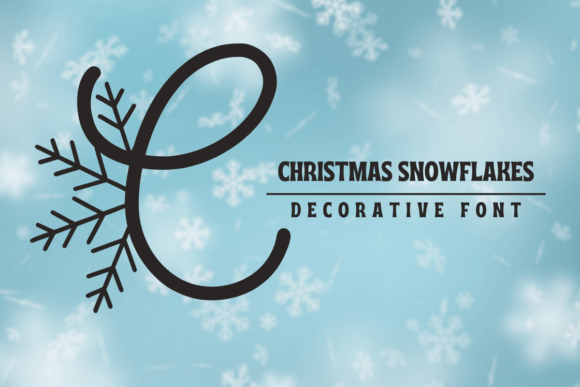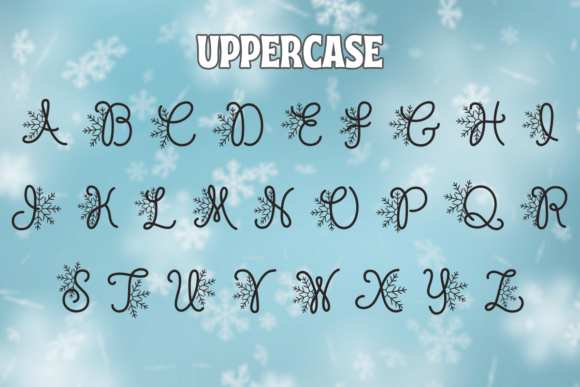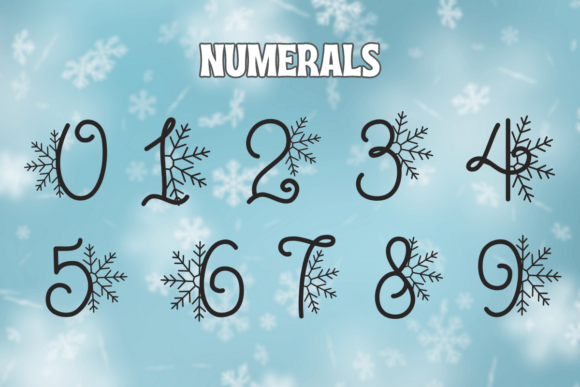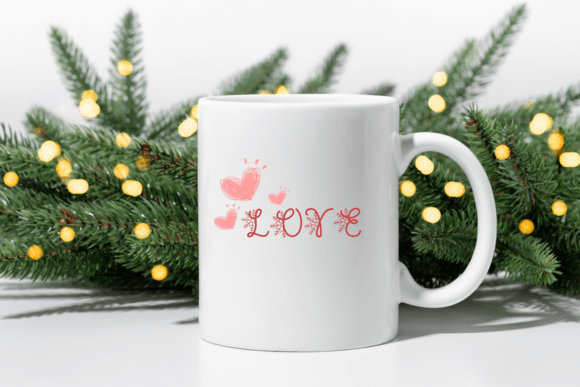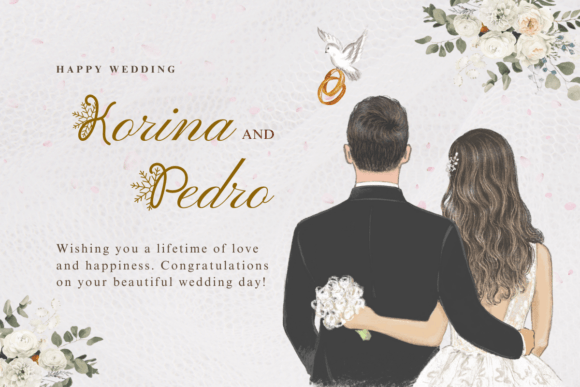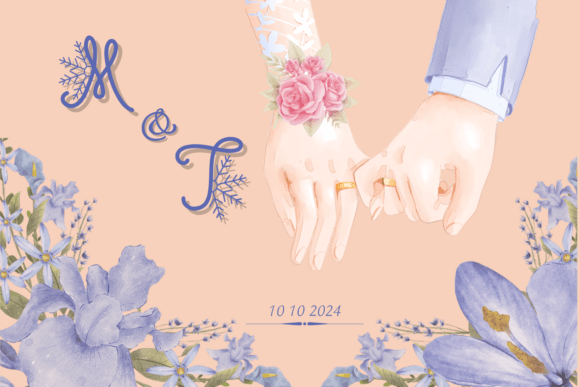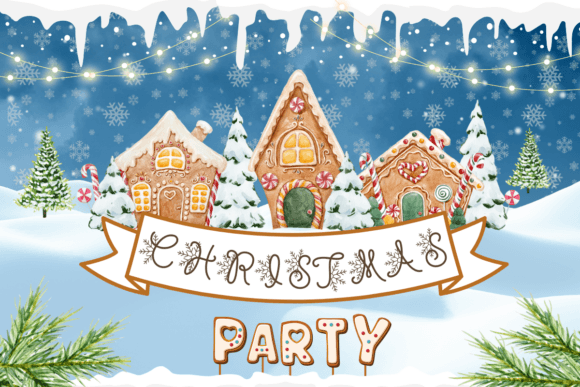
The Magic of Handwritten Christmas Cheer
As the holiday season approaches, we start brainstorming ideas for our Christmas cards and decorations. We want to capture the warmth and coziness of the season, but also make our creations stand out from the crowd. That’s when the perfect font comes to mind – the Christmas Snowflakes Font.
This charming handwritten decorative font is a game-changer for designers and crafters alike. With its delightful snowflake designs, it adds a touch of whimsy and magic to any project. Whether you’re creating holiday cards, invitations, or festive decorations, the Christmas Snowflakes Font is sure to bring a smile to the faces of your loved ones.
Christmas Snowflakes Font Key Features
- Unique Characteristics: Delicate, intricate designs of snowflakes and Christmas elements, perfect for festive and winter-themed projects.
- Number of Glyphs: Includes over 100 unique snowflake and Christmas-themed glyphs, allowing for endless design possibilities.
Designer Review: Christmas Snowflakes Font
Overall, I think the Christmas Snowflakes Font is a cute and playful addition to any winter-themed design. Here’s what I like about it: ✨
- Unique and creative design: The font features intricate, snowflake-inspired patterns that add a touch of whimsy to any text.
- Perfect for winter projects: Whether you’re designing holiday cards, gift tags, or social media posts, this font is sure to get you in the festive spirit.
- Customization options: The font comes with a range of styles and sizes, making it easy to adapt to different design needs.
However, there are some limitations to keep in mind: ⚠️
- Limited legibility: Due to the intricate patterns, the font may be difficult to read at smaller sizes or in certain contexts.
- Limited font families: While the font has multiple styles, it’s still a relatively small family, which may limit its versatility.
Overall, I think the Christmas Snowflakes Font is a fun and creative choice for winter designs. While it may have some limitations, it’s perfect for adding a touch of festive flair to your projects. Just be sure to use it thoughtfully and balance it with clear, legible text to ensure your design doesn’t get lost in the snowflakes.
The Christmas Snowflakes font is ideal for:
- Winter-themed designs, such as Christmas cards and invitations.
- Seasonal marketing materials, such as brochures and flyers.
- Personalized gifts, such as custom ornaments and picture frames.